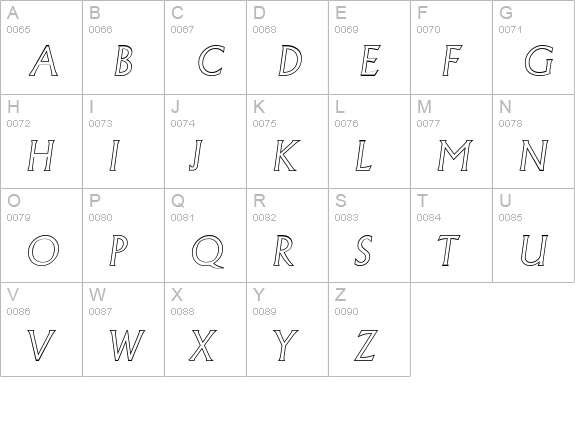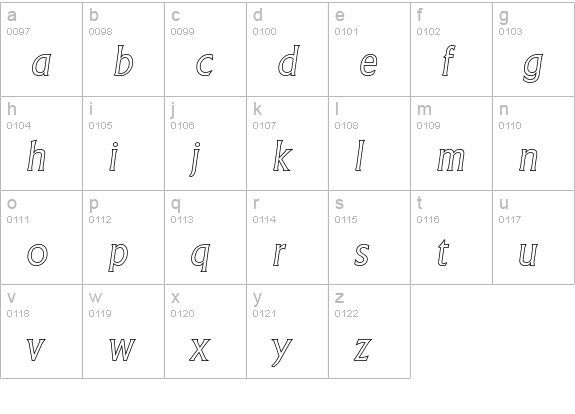
AdelonOutline-Light-Italic is a refined, elegant, italic variant in the AdelonOutline typeface family \xE2\x80\x94 well suited to elegant body text, refined sub-headings, and luxury branding.
AdelonOutline-Light-Italic font is a sleek and elegant typeface that exudes sophistication and modernity. Its delicate lines and italicized style add a touch of grace to any design project. This font is perfect for creating a sophisticated and stylish look for your branding, editorial design, or website. The AdelonOutline-Light-Italic font is also versatile, making it suitable for a wide range of applications, from elegant invitations to sleek logos. Its clean and contemporary design is sure to make a statement and elevate your projects to the next level. Best of all, the AdelonOutline-Light-Italic font is available for free download at FontsMarket.com. This means you can easily access this beautiful typeface and enhance your designs without any cost. Don't miss out on this fantastic opportunity to add a touch of elegance to your projects with the AdelonOutline-Light-Italic font.